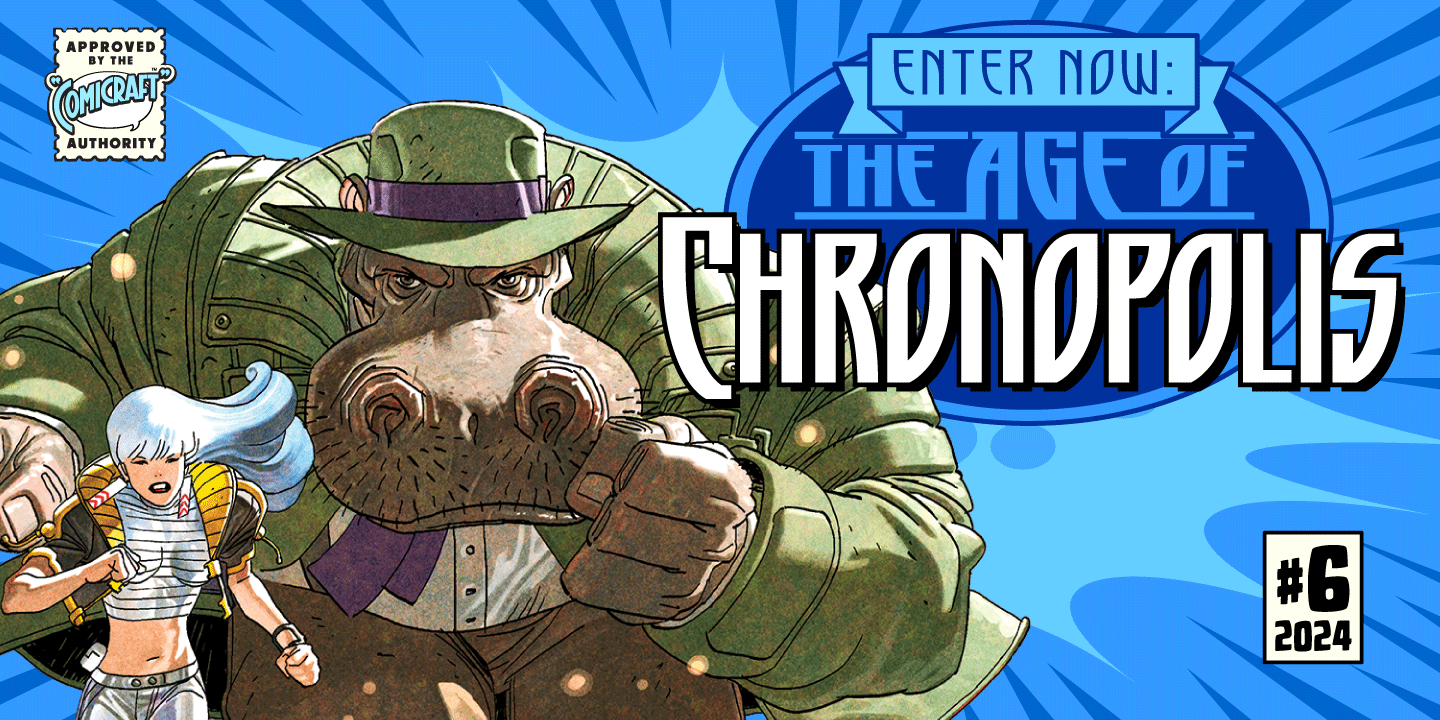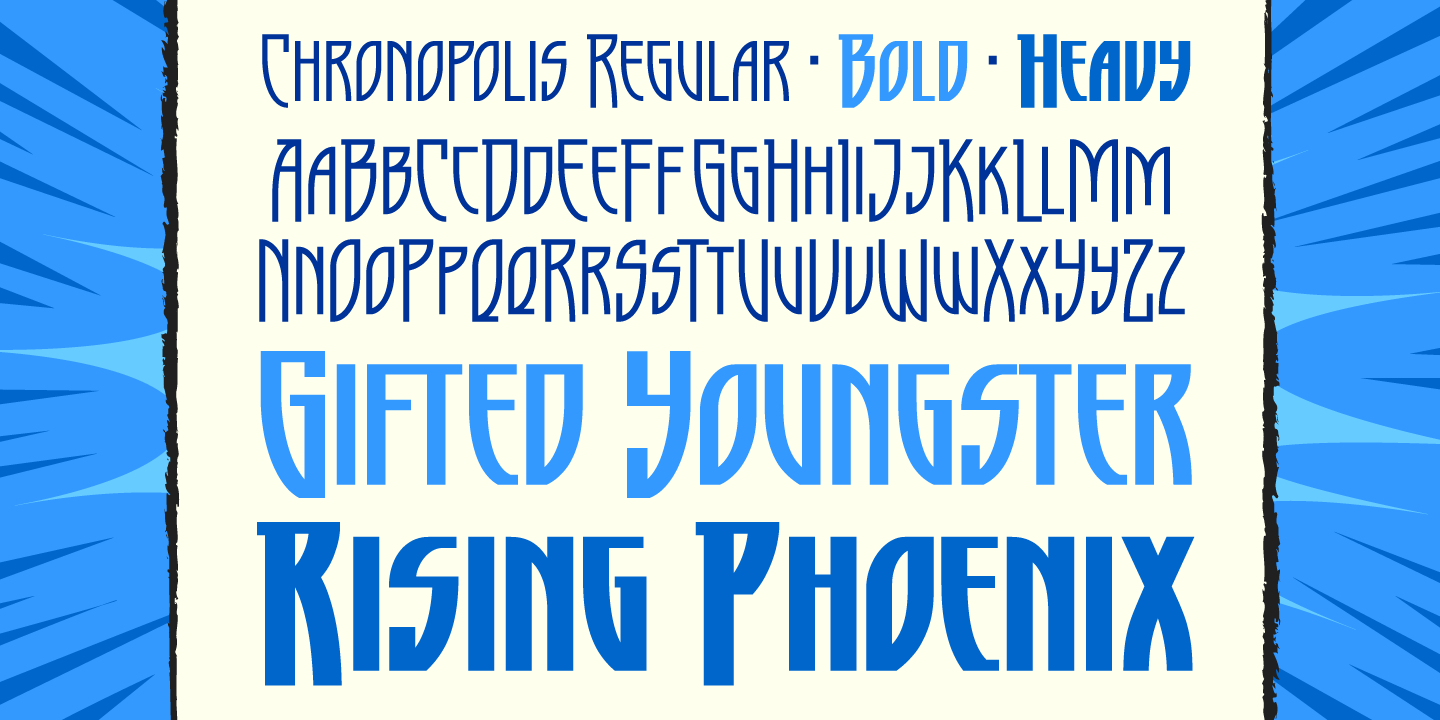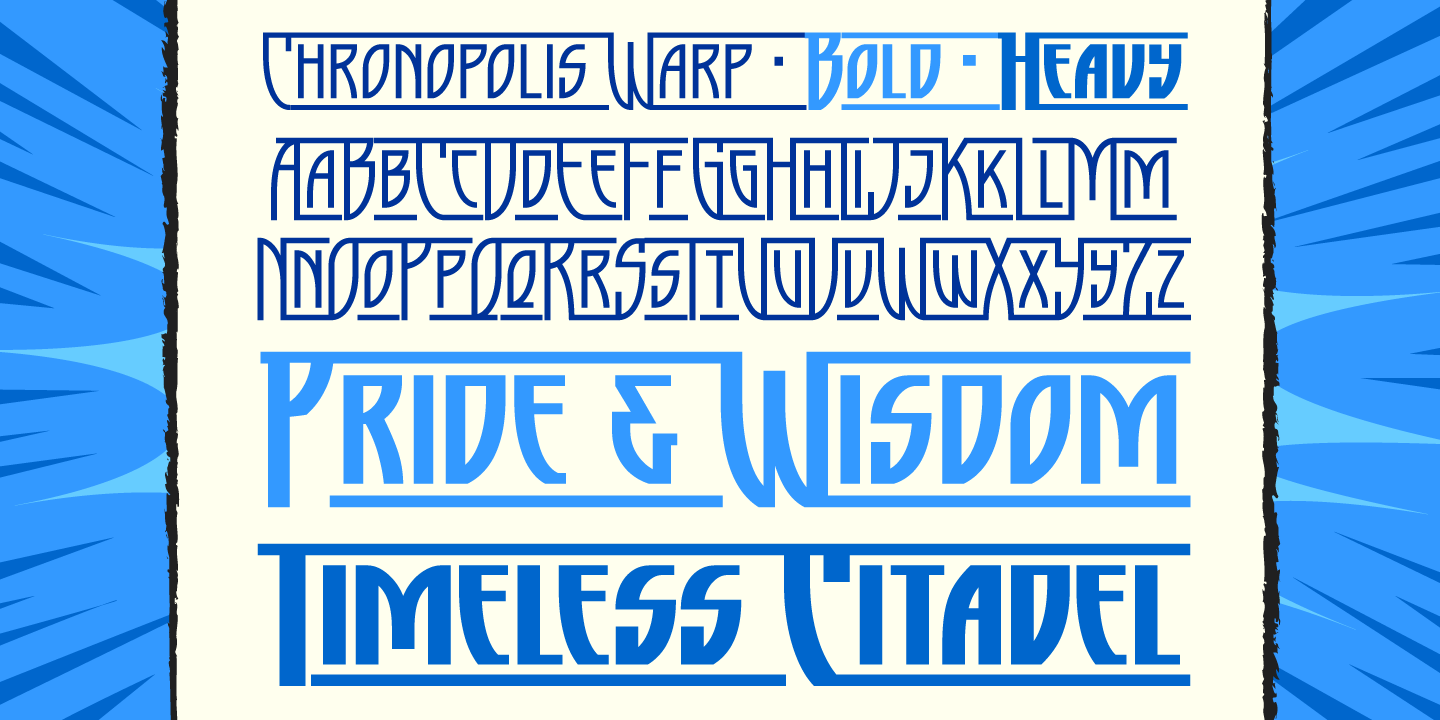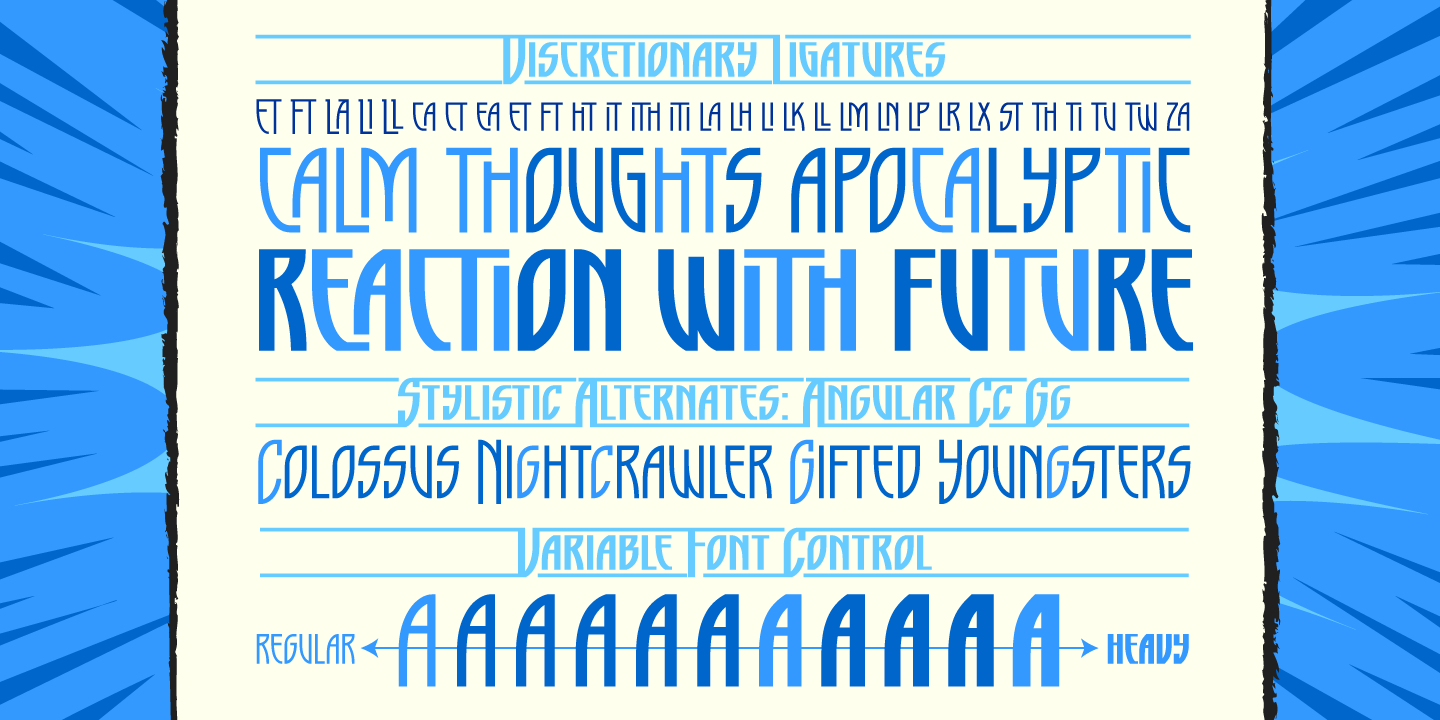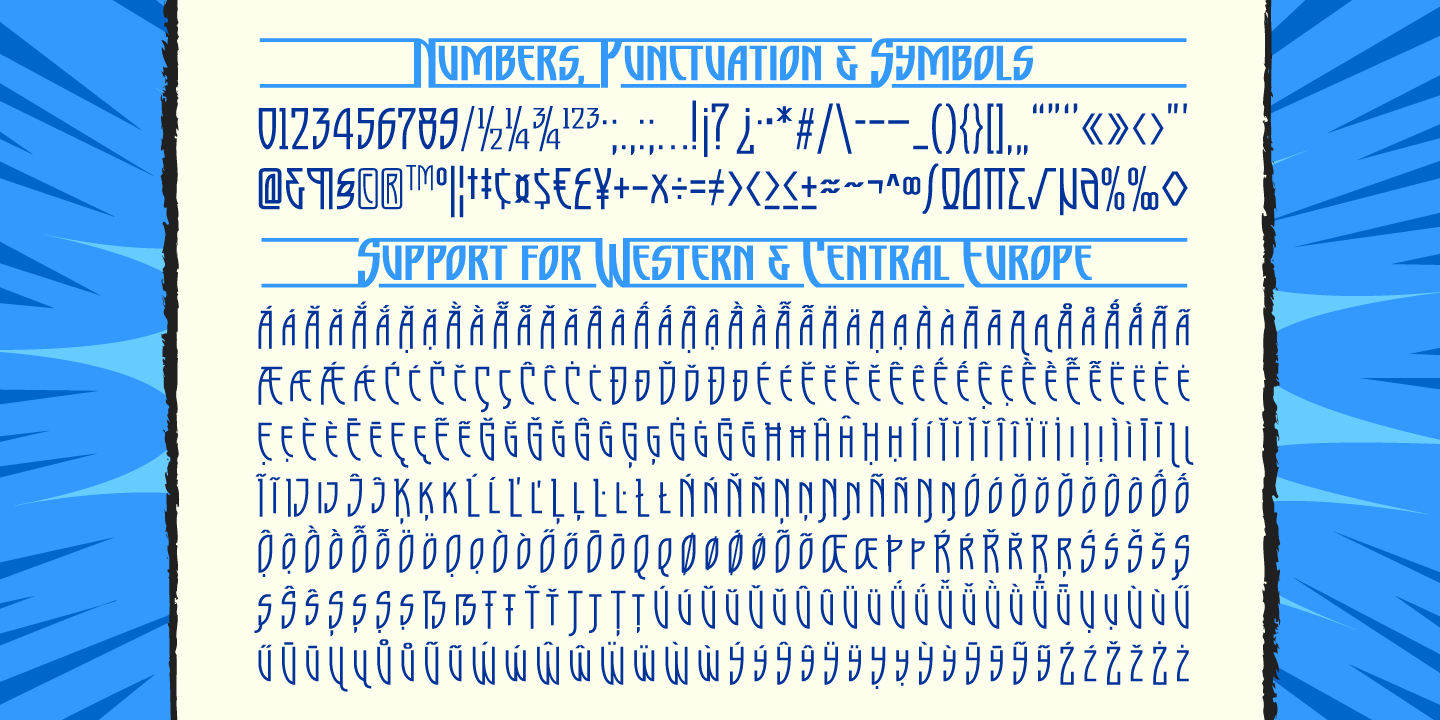
Chronopolis
Font Family by Comicraft Fonts
The Pride and Wisdom of the Shi’ar is Legendary! The Timeless Citadels of the Askani pulse throughout the space/time continuum, bending and stretching belief systems, coherent thought and this set of six display fonts creating during the AGE OF APOCALYPSE!
Check out the Future/Past vibes of this Art Nouveau typeset created by John Roshell, the man who brought style and class to the X-Men in '97! Brought up to the present day with Regular, Bold & Heavy weights in Regular and Warp styles, Variable Font weight control, 30 connecting ligatures, Stylistic Alternates and support for 221 languages.